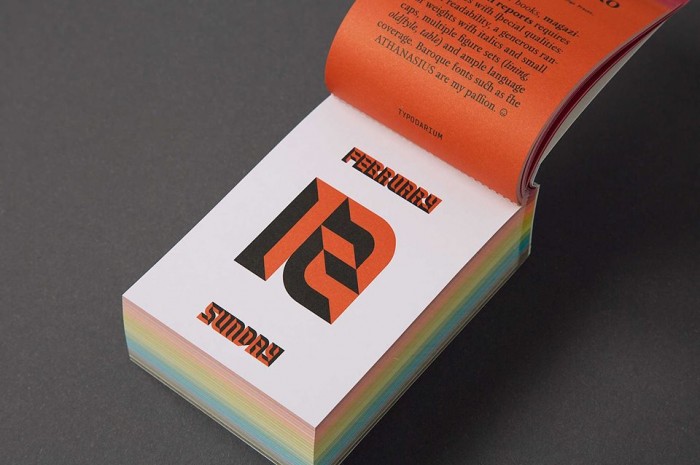
This is similar to one of my fonts (shadow). Yours is much better though. I wish there was a way to do grayscale in fontstruct.
alternates for f and t added under ( and )
@12Me21: you did an excellent job on this though...
Bevelon in the next Typodarium on page 12th February. This is a fantastic work and great recognition. Congratulations.
bevelon fill lokks... I don't really know what to say, it's cool!